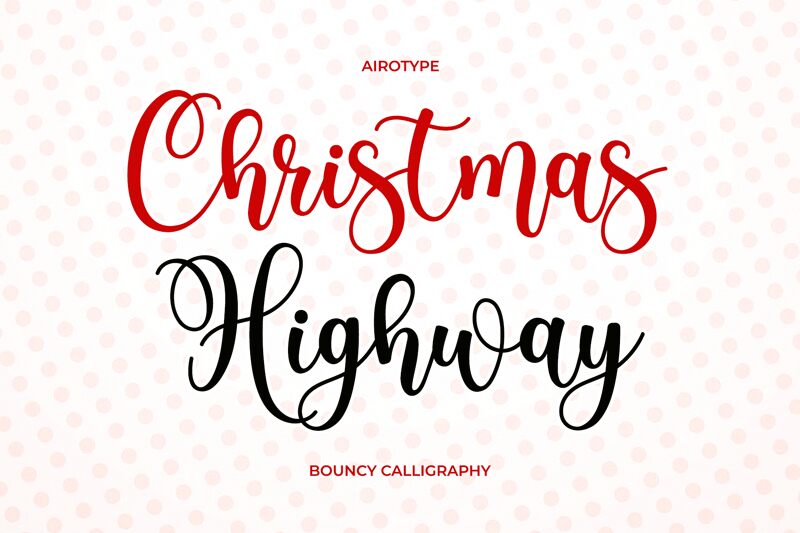
Christmas Highway font by Airotype Studio is a free calligraphy font with an elegant and festive character. Its expressive, flowing, and decorative letters are welcoming and lively. Perfect for contemporary applications in seasonal branding, Christmas Highway was designed with modern calligraphy in mind. The contemporary font is the latest interpretation of traditional calligraphy applied to digital applications.
Modern calligraphy, as exemplified in Christmas Highway, is an excellent choice for bloggers and social media campaign designers. Use it in branding projects like logos and flower shop naming. Photographers in need of a fanciful script for your business cards? Tempt your readers with expressive headlines. Create beautiful wedding invitations, posters, restaurant menus, and personalized greeting cards, among others.